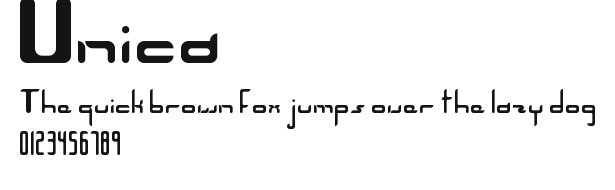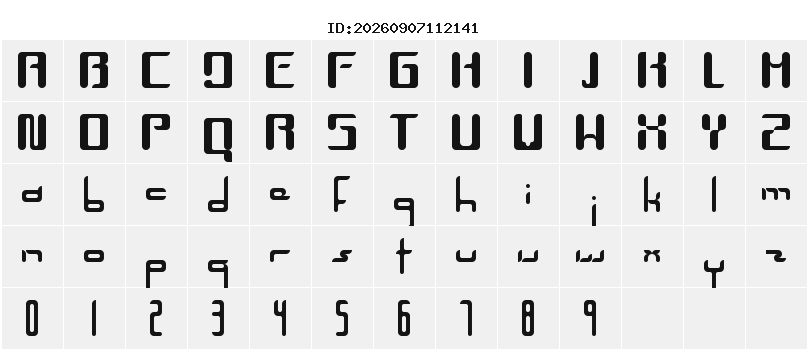
Unica Preview
• Font Name: Unica
• Font ID: FontStruct Unica
• Full Font Name: Unica Regular
• PostScript Name: Unica
• Designer: elias chafino
About Unica.ttf
Unica.ttf is a modern, elegant sans-serif font designed for ultimate readability and visual harmony. Perfect for branding, headlines, web design, and print materials.